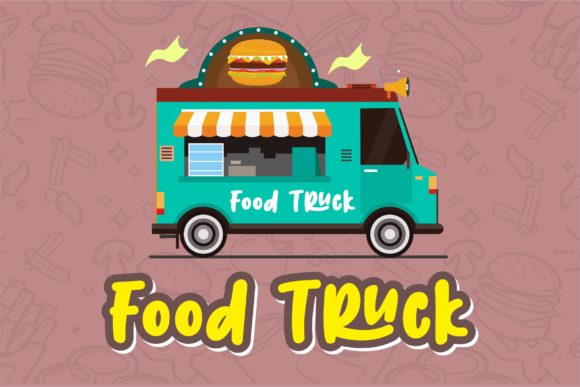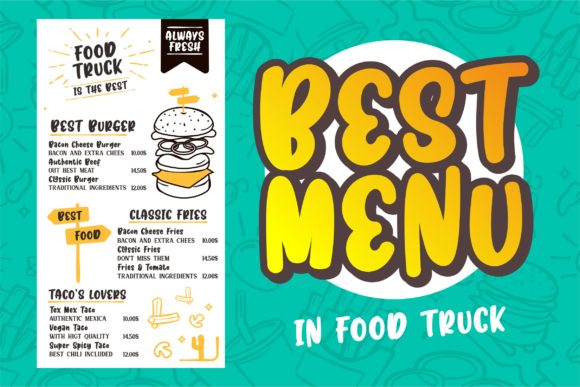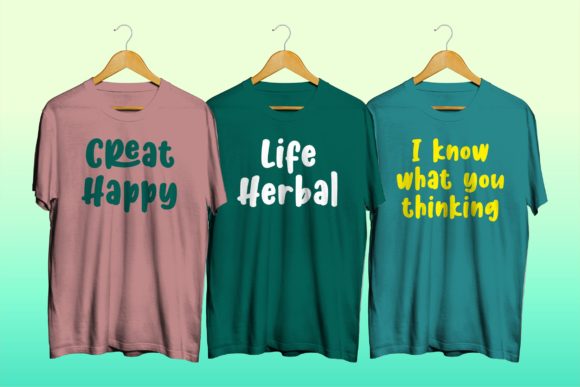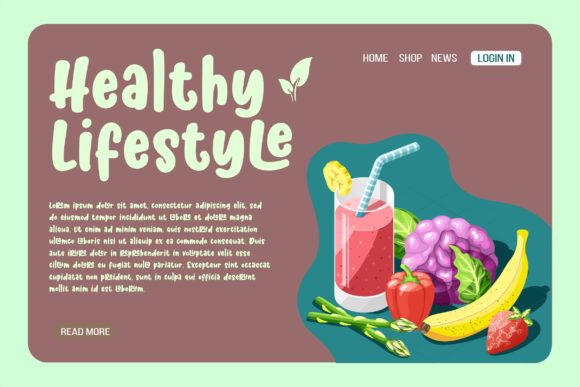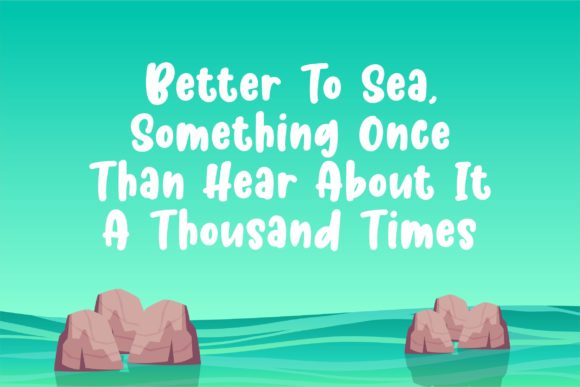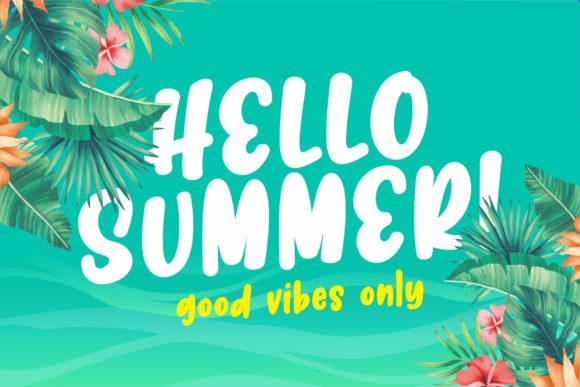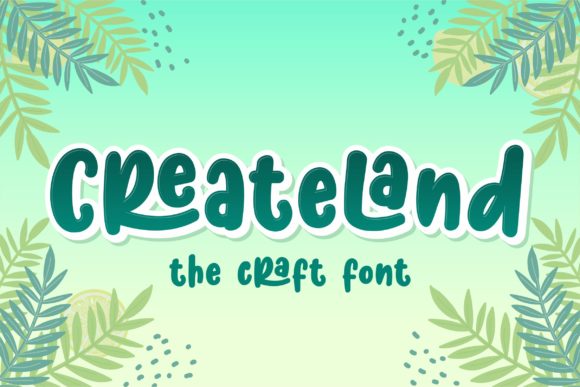
Createland Font: The Ultimate Bold Display Font for Designers and Crafters
In the world of typography, a good font can make all the difference in a design project. It’s what sets the tone, conveys the message, and captures the audience’s attention. For designers and crafters looking for a bold and versatile font, Createland Font is an excellent choice. In this article, we’ll dive into the features and benefits of Createland Font, and explore how it can elevate your design projects.
What is Createland Font?
Createland Font is a bold display font that’s carefully handcrafted to become a true favorite among designers and crafters. Its casual charm makes it appear wonderfully down-to-earth, readable, and incredibly versatile. Whether you’re working on a busy background or a standalone headline, Createland Font is designed to shine.
Key Features of Createland Font
- Bold and Eye-catching: Createland Font is a bold display font that’s perfect for making a statement. Its thick lines and sturdy structure make it highly legible, even at smaller sizes.
- Casual Charm: Createland Font has a friendly and approachable feel to it, making it ideal for designs that require a personal touch.
- Versatile: Createland Font is incredibly versatile and can be used in a variety of design contexts, from headings and titles to logos and branding.
- Readable: Despite its bold nature, Createland Font is highly readable, even on busy backgrounds or at smaller sizes.
Benefits of Using Createland Font
So, why should designers and crafters choose Createland Font for their projects? Here are just a few benefits:
- Saves Time: With Createland Font, you can create stunning headings and titles in no time. Its bold and eye-catching design means you can get your message across quickly and effectively.
- Adds Personality: Createland Font’s casual charm adds a personal touch to your designs, making them more relatable and engaging.
- Improves Readability: Createland Font’s high legibility ensures that your message gets across clearly, even in busy or complex designs.
- Enhances Branding: Createland Font can help you establish a strong brand identity with its unique and memorable design.
How to Use Createland Font in Your Designs
Using Createland Font in your designs is easy. Here are a few tips to get you started:
- Headings and Titles: Use Createland Font as a heading or title font to grab attention and set the tone for your design.
- Logos and Branding: Createland Font is perfect for logos and branding, especially if you want to create a bold and memorable identity.
- Posters and Flyers: Createland Font is ideal for posters and flyers, where you need to make a big impact quickly.
- Digital Designs: Createland Font works well in digital designs, such as social media graphics, website headers, and email newsletters.
In conclusion, Createland Font is a bold and versatile display font that’s perfect for designers and crafters looking to add a personal touch to their designs. Its casual charm, readability, and high legibility make it an excellent choice for a wide range of design projects. Whether you’re working on a heading, title, logo, or branding, Createland Font is sure to impress. So why not give it a try and see how it can elevate your designs?
- Createland Font is a bold display font with a casual charm.
- It’s highly versatile and can be used in a variety of design contexts.
- Createland Font is highly readable, even on busy backgrounds or at smaller sizes.
- It’s perfect for designers and crafters looking to add a personal touch to their designs.